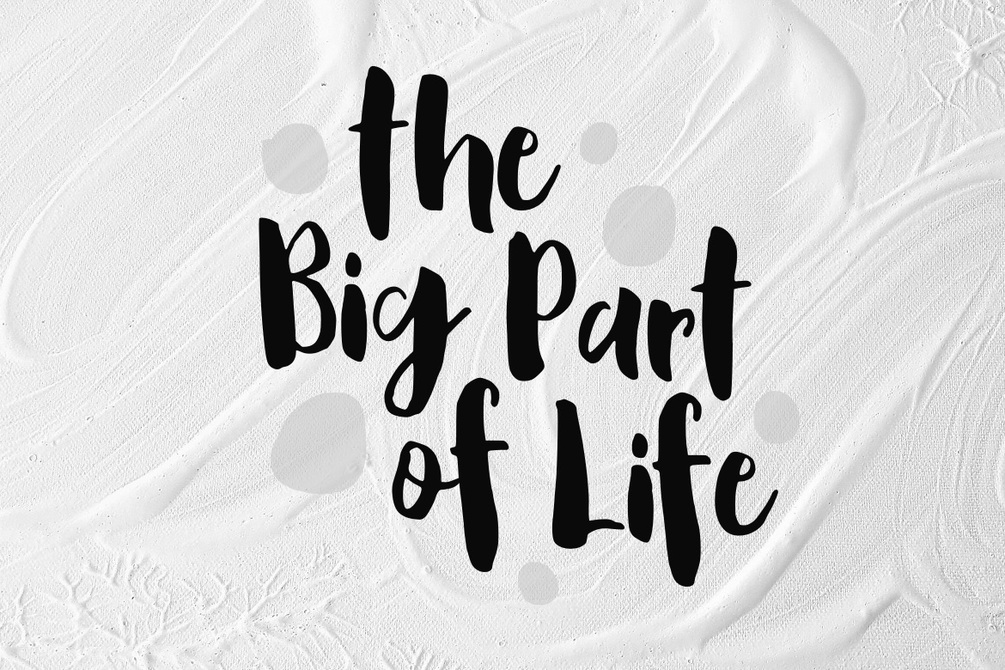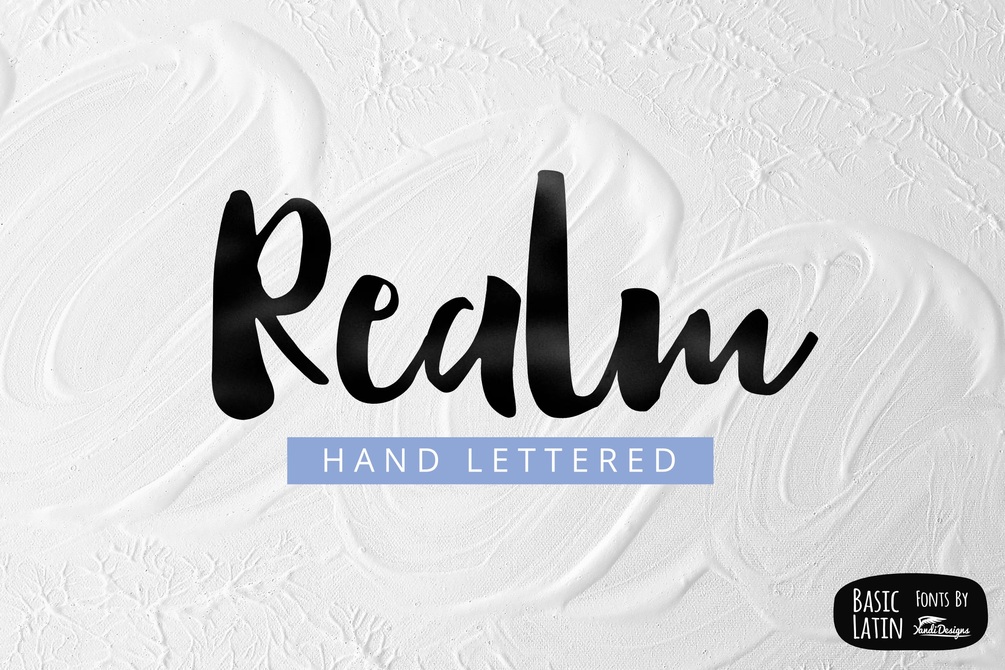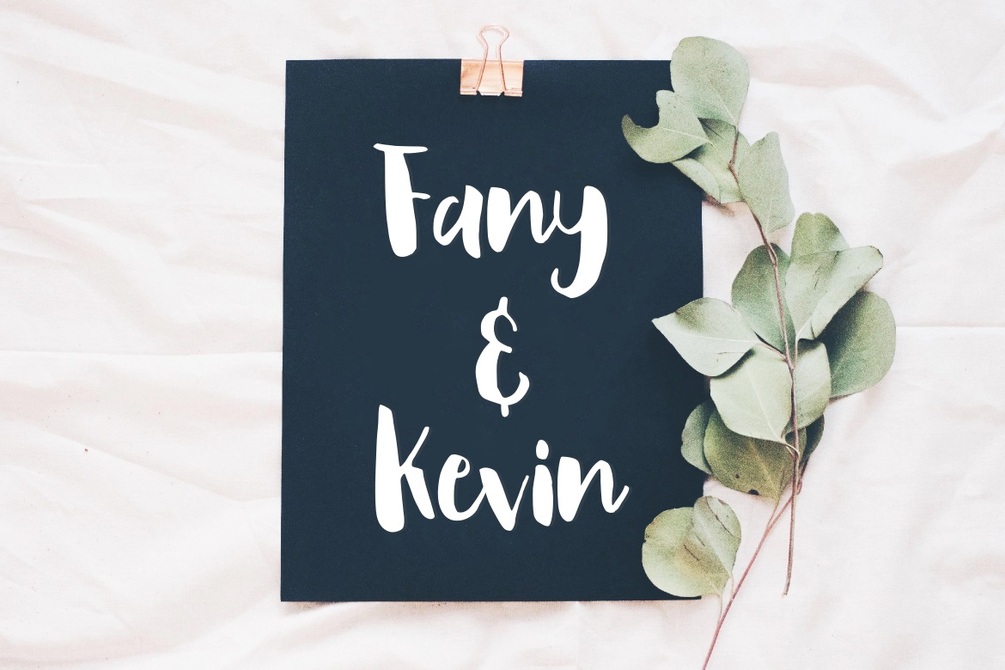
Realm Font
Realm Brush Font
Artistic and simple hand lettered brush script font , suitable for many project , quotes, logo , doodle, heading , title etc.